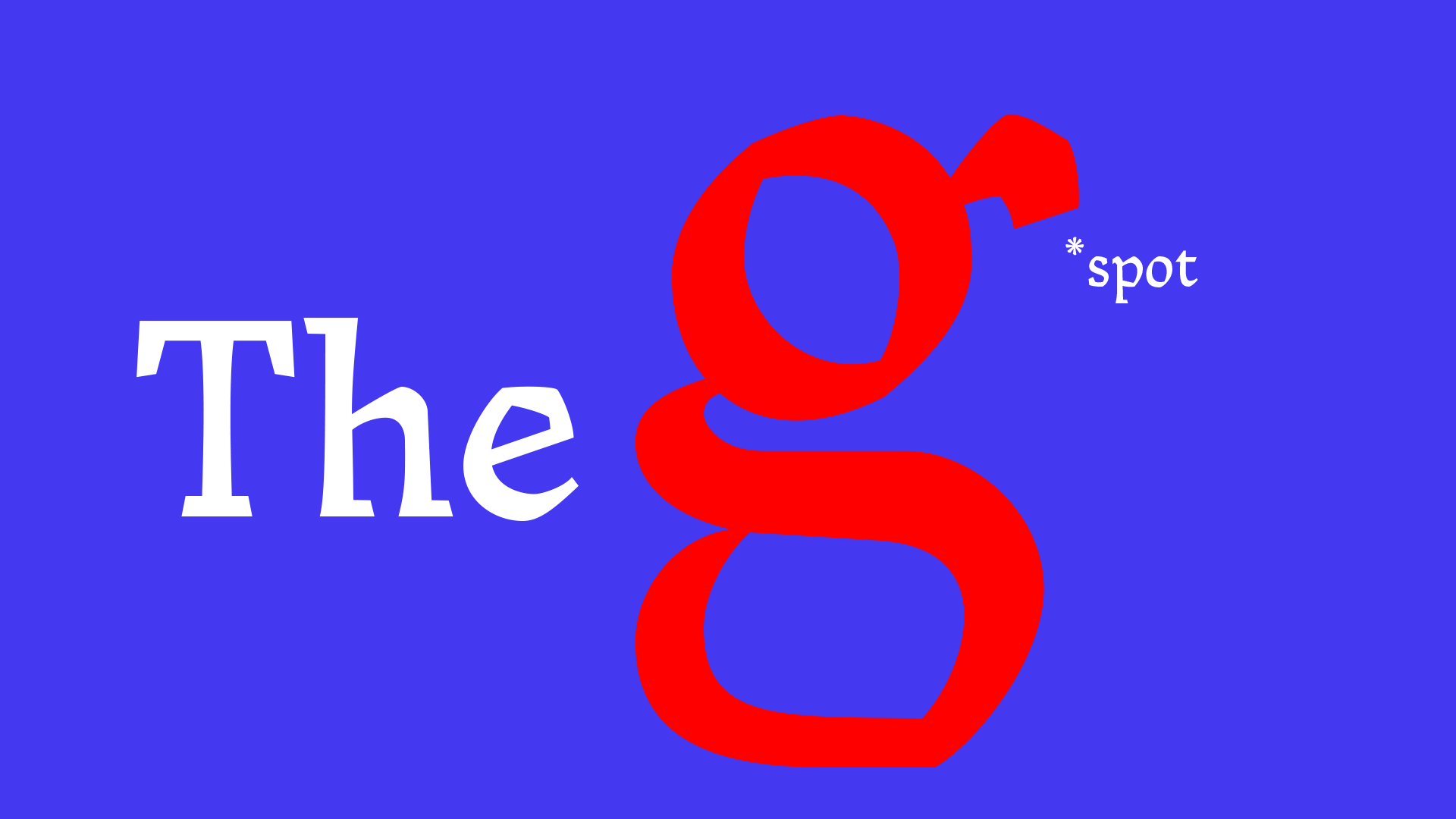
The power of typography in conveying messages cannot be understated.
Inspired by the historic events of Paris May '68 and the vibrant folklore tradition of Brazilian "literatura de cordel," a new typeface has been crafted specifically for feminist activism wheat pasting posters. In the face of the divided social turmoil surrounding gender and women’s rights across the globe, Mandacaru emerges as a powerful and relevant tool in the ongoing struggle for social justice and equality.
The Queen-of-the-night or Mandacaru flower is a type of cactus native to Brazil. It holds cultural significance in the country and is often associated with resilience, strength, and survival in harsh conditions. In times of drought in the semi-arid "hinterland" region of northeastern Brazil, known as the Sertão, the fruit of the Mandacaru cactus was used as food.
The briefing delves into visual research. Mandacaru draws inspiration from two distinct sources: the iconic Paris May '68 movement and the traditional Brazilian "literatura de cordel." The May '68 movement symbolized a transformative period in history, characterized by student protests, civil rights advocacy, and feminist activism. Meanwhile, literatura de cordel refers to popular pamphlets of poetry and storytelling in Brazil, often created and distributed by marginalized communities. Mandacaru typeface embodies the spirit of resistance and activism with bold letterforms that demand attention and engagement.
The design of Mandacaru resembles the roughness of woodcut aesthetics found in literatura de cordel pamphlets as well as Paris May '68 posters. This evokes the grassroots nature and fast-paced needs of these media forms, along with their inexpensive printing methods and deliberate imperfections. Through the intentional combination of sharp angles and curves, the Mandacaru typeface elicits emotional responses, conveying determination, strength, resilience, and vulnerability.
The visual research barely offered examples of lowercase letterforms and serif fonts as a reference. These communication pieces commonly rely on uppercase sans serif display fonts, characteristic of the ephemeral and short-lived nature of these media forms that aim for immediate impact.
In a sense, the development of this project had many challenges, beginning with the fact that I had never designed a typeface or worked with a calligraphy pen before. Additionally, being left-handed posed difficulties, resulting in trembling strokes and wobbly round shapes. I had a complete lack of control, leaving me with very few hand-drawn letter shapes to use as a foundation for the typeface development. Essentially, I had to navigate this unfamiliar terrain, much like a flower in the arid Sertão.
In its imperfection, Mandacaru is perhaps perfect. It is a resilient, humanistic, and "human" typeface that reminds me that the creative process is not linear and is not solely about the final result. It emphasizes the importance of collaboration and complete surrender to the creative journey.